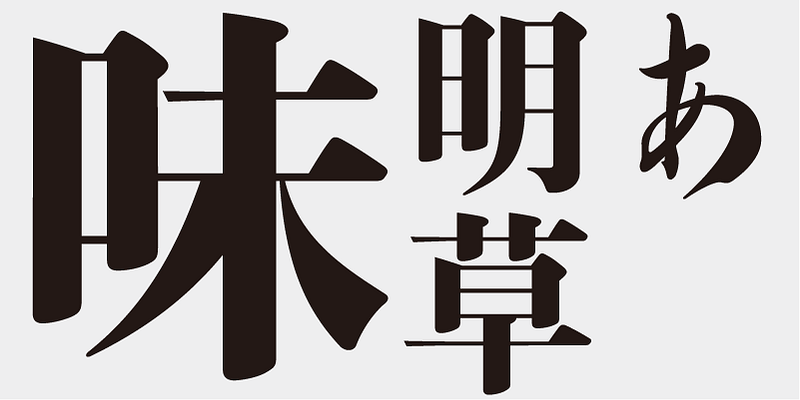
AB Ajimin So/EB Font Free Download is a beautifully crafted Japanese Mincho-style serif typeface that brings together classical elegance and modern boldness. The “So” (想) in its name suggests “thought” or “imagination,” evoking a reflective and poetic tone—while “EB” (Extra Bold) indicates a strong, confident weight designed for high-impact titles and refined visual storytelling.
AB Ajimin So/EB Font Free Download features traditional Mincho characteristics: vertical stress, delicate yet sharp serifs, and high contrast between thick and thin strokes. In this Extra Bold version, those features are magnified—making it perfect for headlines, book covers, signage, sake labels, or luxury branding where a sense of tradition and prestige is essential.
Supporting Hiragana, Katakana, Kanji, and Latin characters, it’s an excellent choice for bilingual designs that aim to harmonize Japanese cultural depth with contemporary layout demands.
Elegant, intellectual, and full of expressive strength—AB Ajimin So/EB Font brings a sophisticated blend of heritage and visual impact to your Japanese typography.